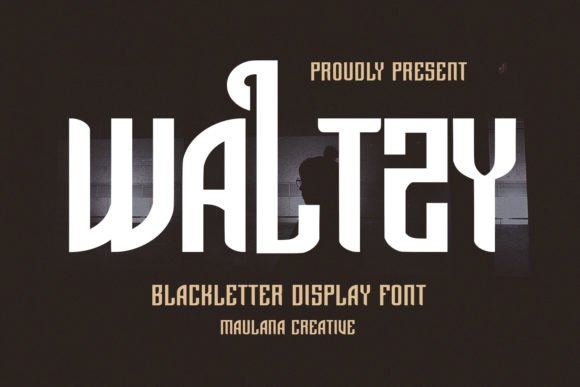
Behold, Waltzy Font – A Blackletter Masterpiece for Your Creative Endeavors!
Step into the realm of captivating typography with Waltzy Font, a stunning creation by Maulana Creative. This blackletter font family exudes an aura of musicality, making it the perfect choice for crafting posters that resonate with rhythm and harmony.
Picture this: your music poster adorned with Waltzy's playful charm, inviting onlookers to embark on a journey of melodies and beats. Its enchanting characters, adorned with ligatures and alternates, dance across the page, creating a visual symphony that captures the essence of your musical vision.
Waltzy isn't just confined to posters; its versatility extends to social media, movie titles, book covers, and even lengthy text. Let your imagination run wild as you weave captivating words into existence, using Waltzy as your expressive medium.
This font is a master of duality, seamlessly complementing script or serif fonts as a secondary text element. Its presence adds depth and intrigue to your designs, elevating them to new heights of visual appeal.
Waltzy Font – Your Gateway to Creative Expression!
Immerse yourself in the world of Waltzy Font and watch your designs flourish. Its musicality, versatility, and sheer beauty make it an indispensable tool for any creative seeking to make a statement.